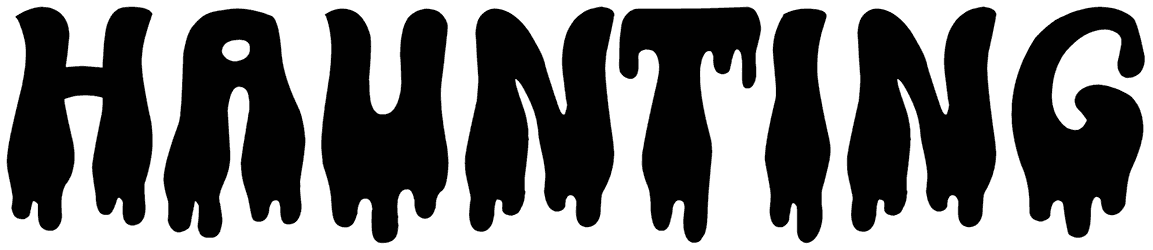
Haunting Font
Before downloading Haunting for your projects, see if you need anything from the numerics or the punctuation marks. This way, you’ll know whether you can count on Haunting as an adorable melting font or if you should just move on to other options.
Of course, you can’t choose it for anything but posters, logos, or titles in general because it’s made as an all-caps font. In other words, it’ll be just the best for your ice cream shop flyers, gaming designs, etc.